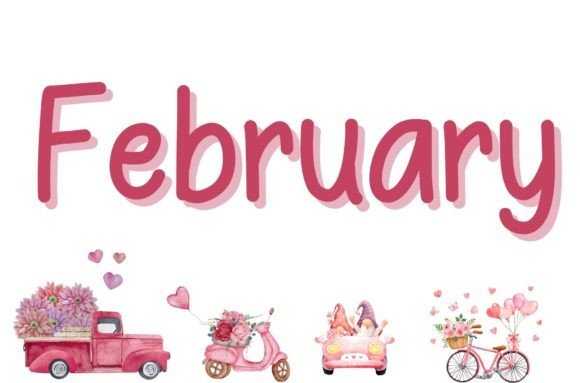
Unleash Your Creativity with February Font
Have you ever been scrolling through social media, and a beautifully designed post catches your eye? Maybe it’s a cute graphic for a children’s birthday party or a romantic wedding invitation. Whatever it is, there’s a good chance that the February Font played a starring role in making it stand out. This charming handwritten font has become a go-to choice for designers looking to add a touch of warmth and personality to their work.
Whether you’re a seasoned pro or just starting out, February Font is an incredibly valuable tool in your creative arsenal. Its versatility makes it perfect for a wide range of projects, from logos and branding to greeting cards and social media graphics. By incorporating February Font into your designs, you can instantly breathe new life into your ideas and make them feel more authentic and engaging.
- Unique Characteristics: February Font features a unique blend of modern and elegant elements, with subtle flair and intricate details that set it apart from other sans-serif fonts.
February Font Review
Overall, I think the February font has some great qualities that make it a solid choice for certain projects. ✨ The font’s friendly and approachable nature makes it perfect for use in children’s books, greeting cards, and other materials where a warm tone is desired. ✨ The font’s rounded edges and soft curves also give it a unique and memorable feel.
One of the standout features of the February font is its excellent legibility, even at smaller font sizes. This makes it a great choice for projects where text will be displayed in a variety of contexts.
- Friendly and approachable nature
- Unique and memorable feel
- Excellent legibility
- Versatile and suitable for various projects
- ⚠️ The font may be too playful for some corporate or formal projects
- ⚠️ The font’s rounded edges may not be suitable for projects where a sharp, modern feel is desired
- ⚠️ The font may be limited in its use for technical or scientific projects
Overall, I think the February font is a solid choice for projects where a friendly and approachable tone is desired. While it may not be suitable for all projects, it’s a great option for those looking for a unique and memorable font.
Tips for Getting the Most Out of February Font
February Font is a versatile font that can be used for a variety of projects. To get the most out of it, try using it in combination with bold or italic text for emphasis, or use it to create a unique and eye-catching headline.
February Font is commonly used for:
– Headlines and titles
– Print materials such as business cards and brochures